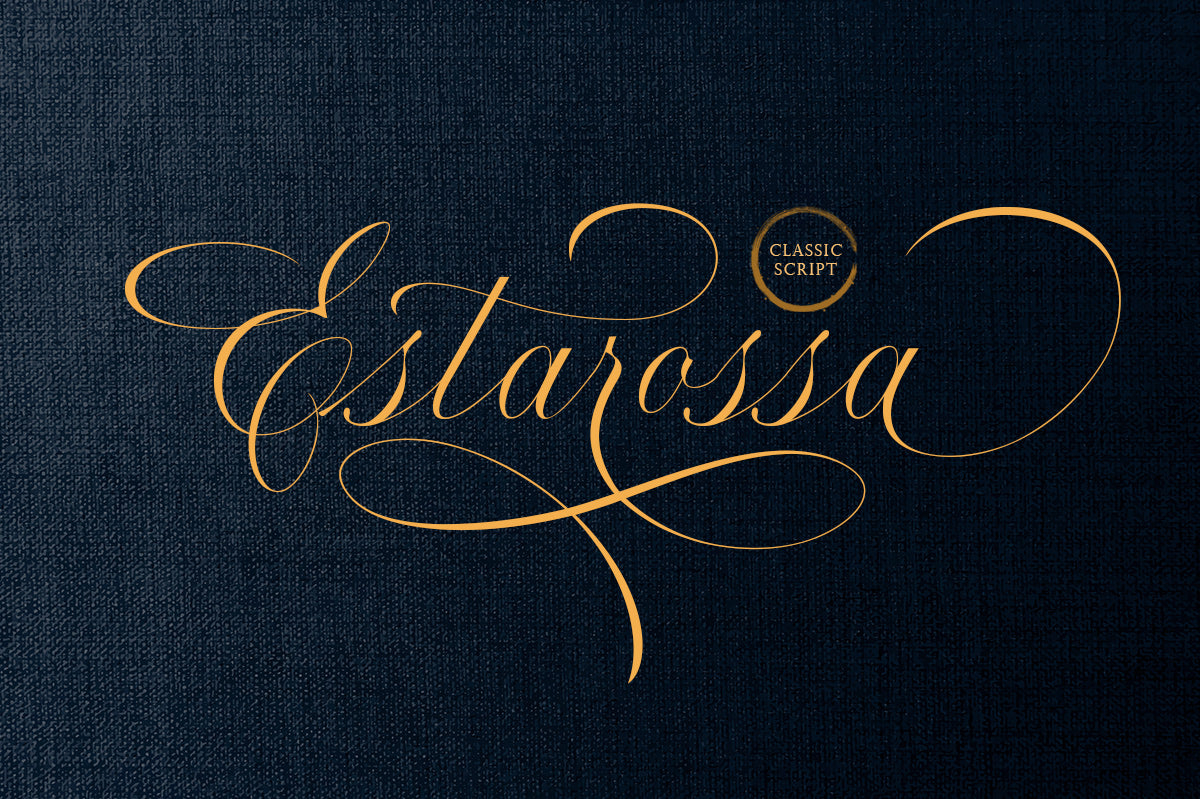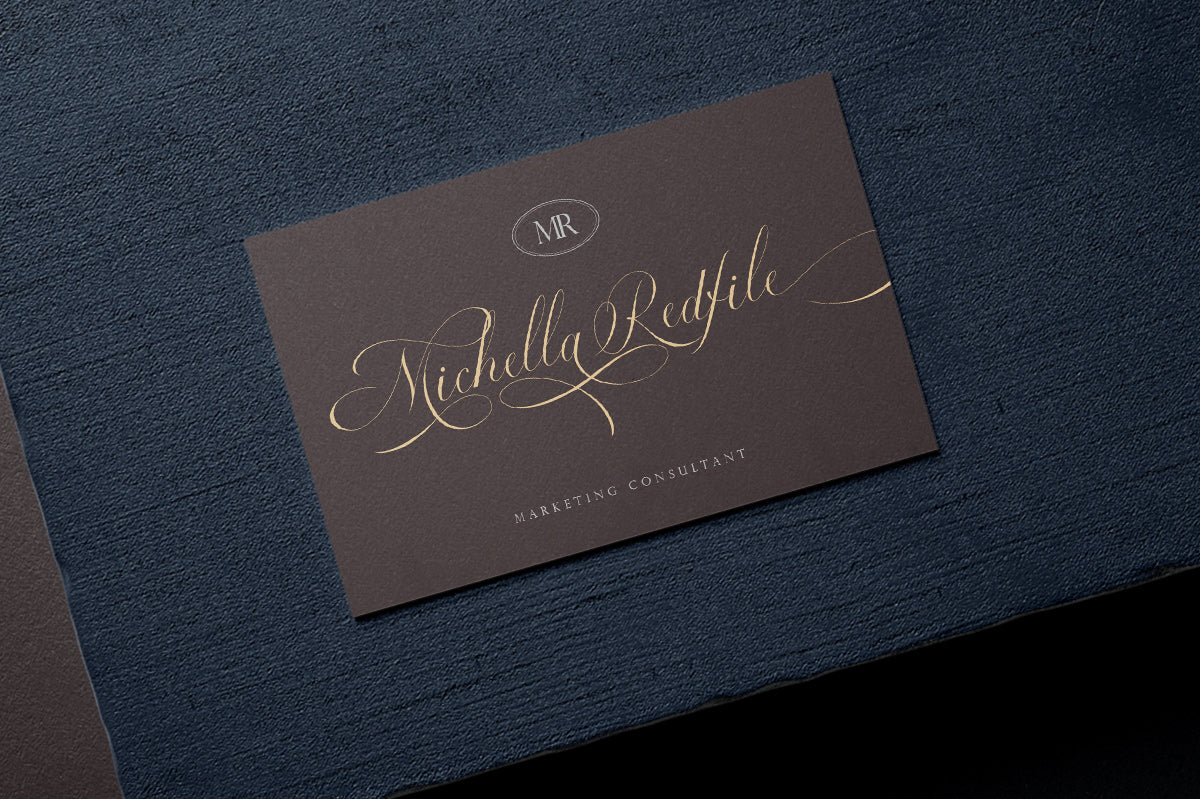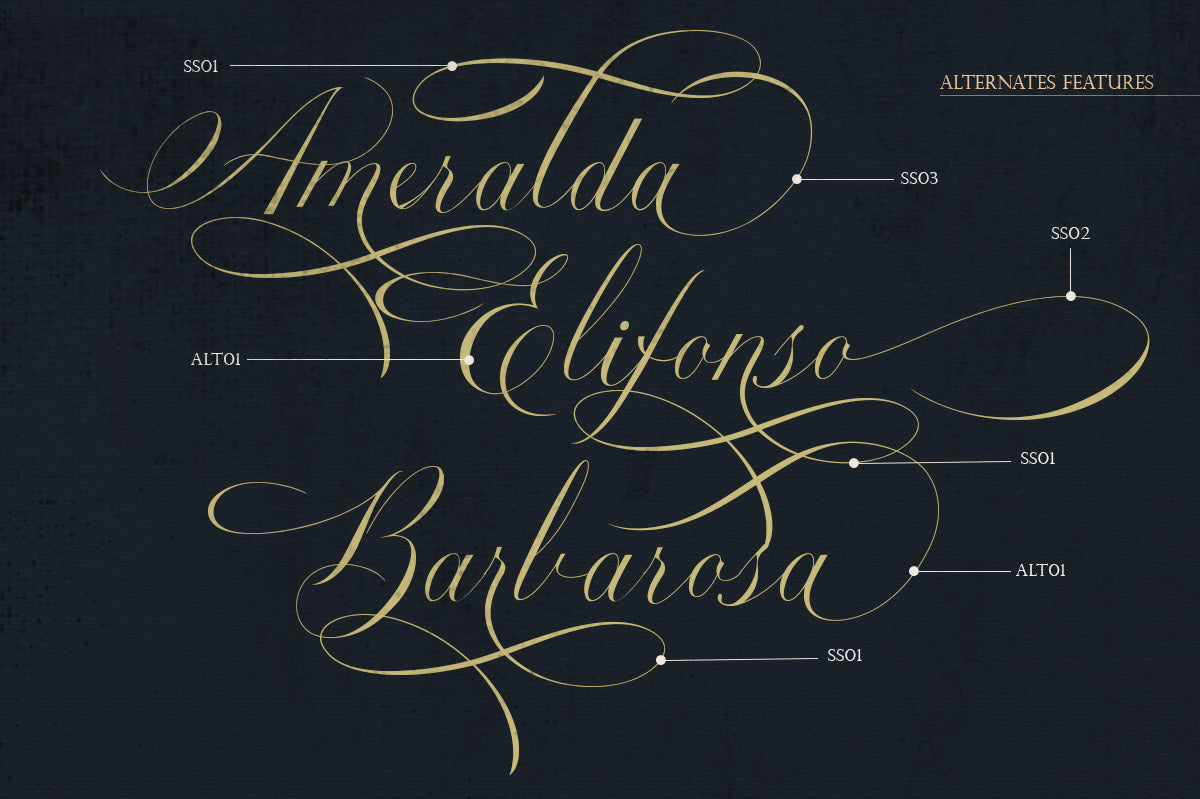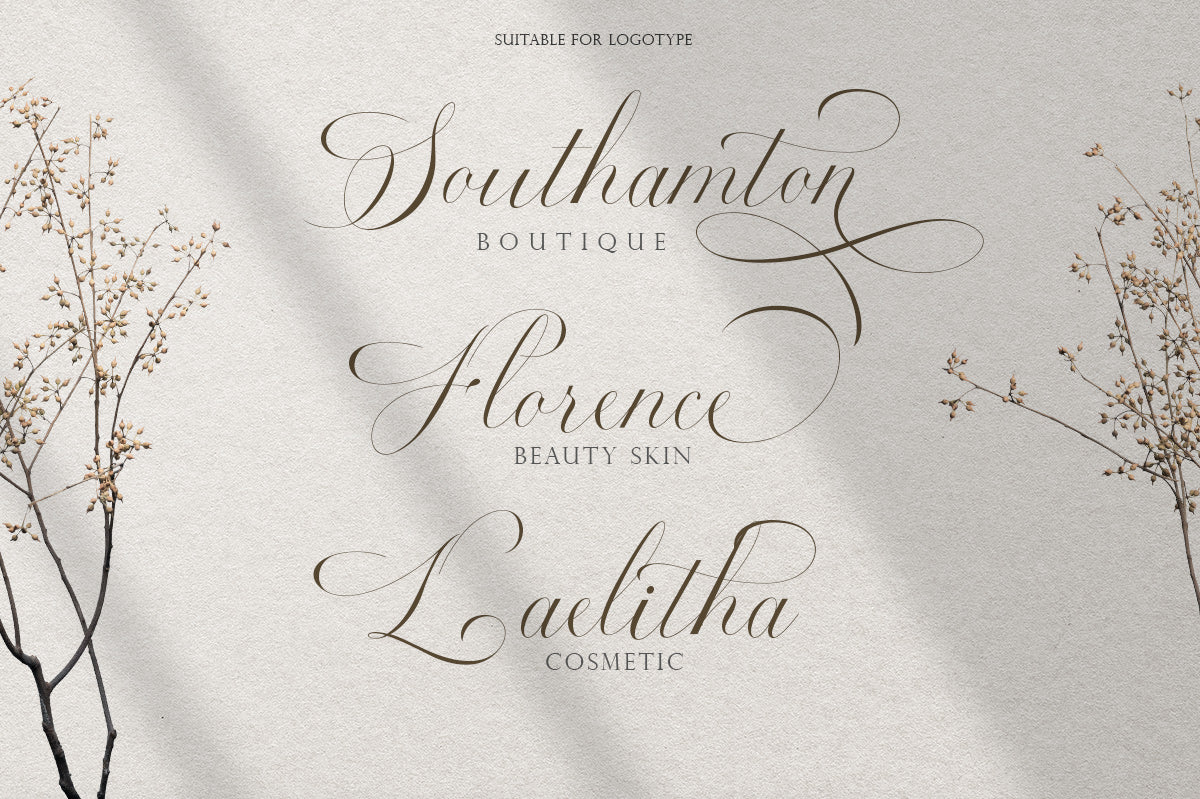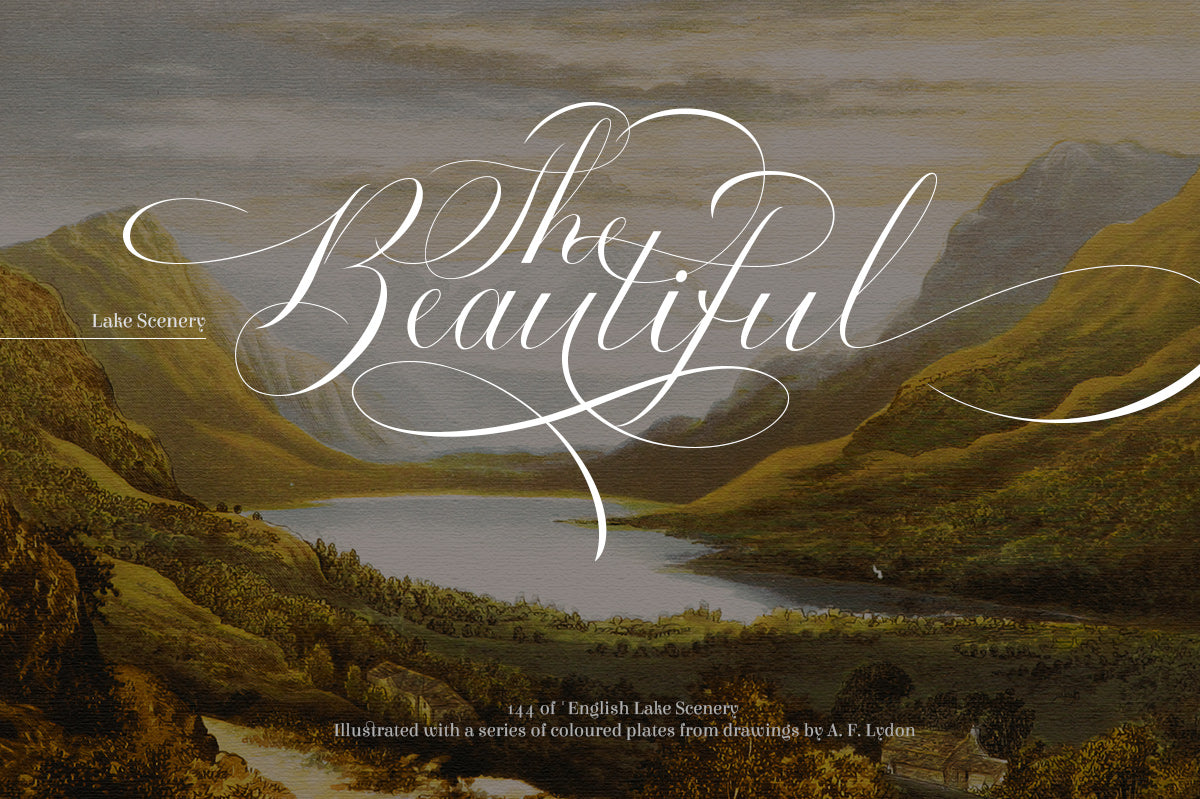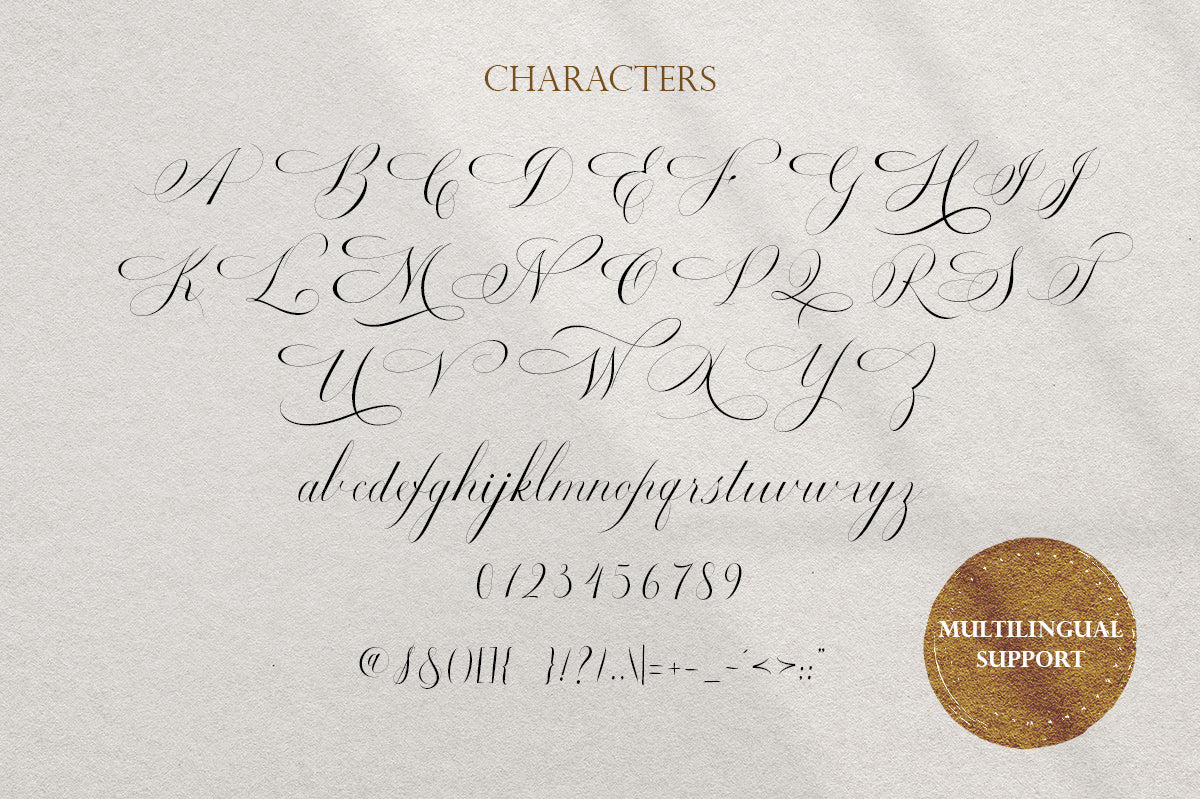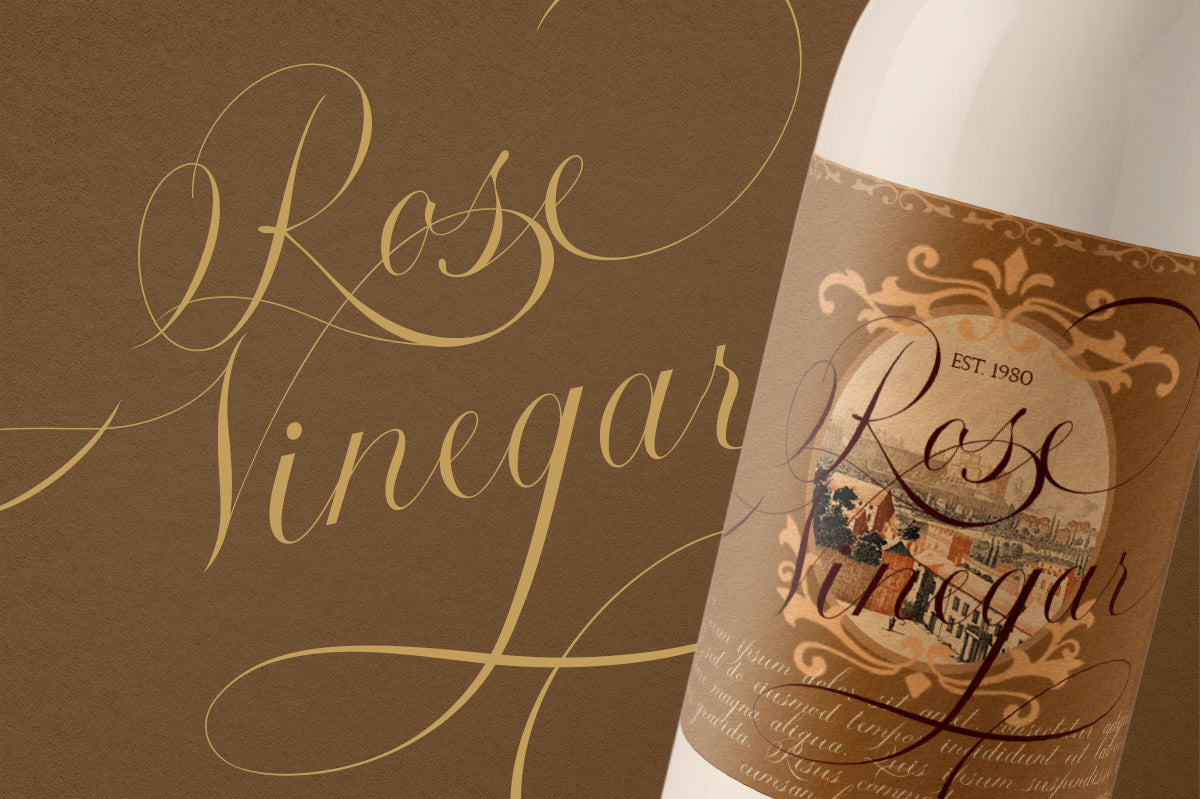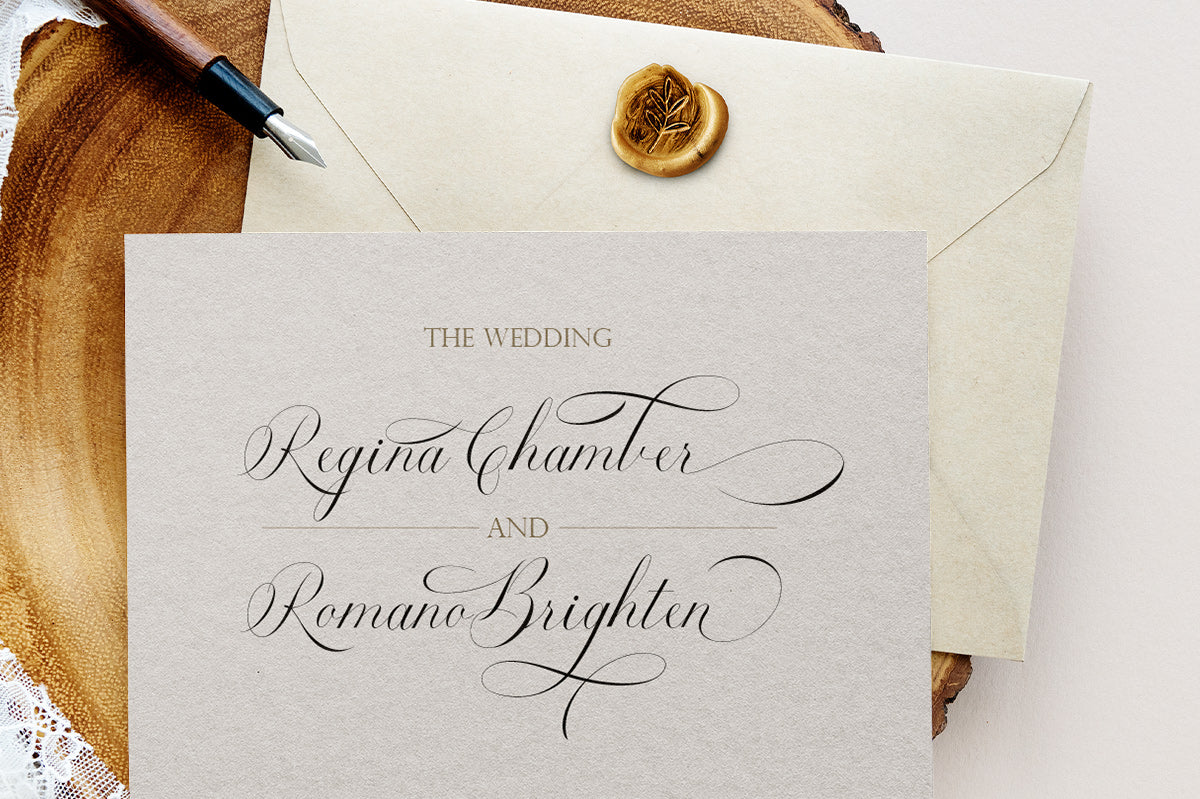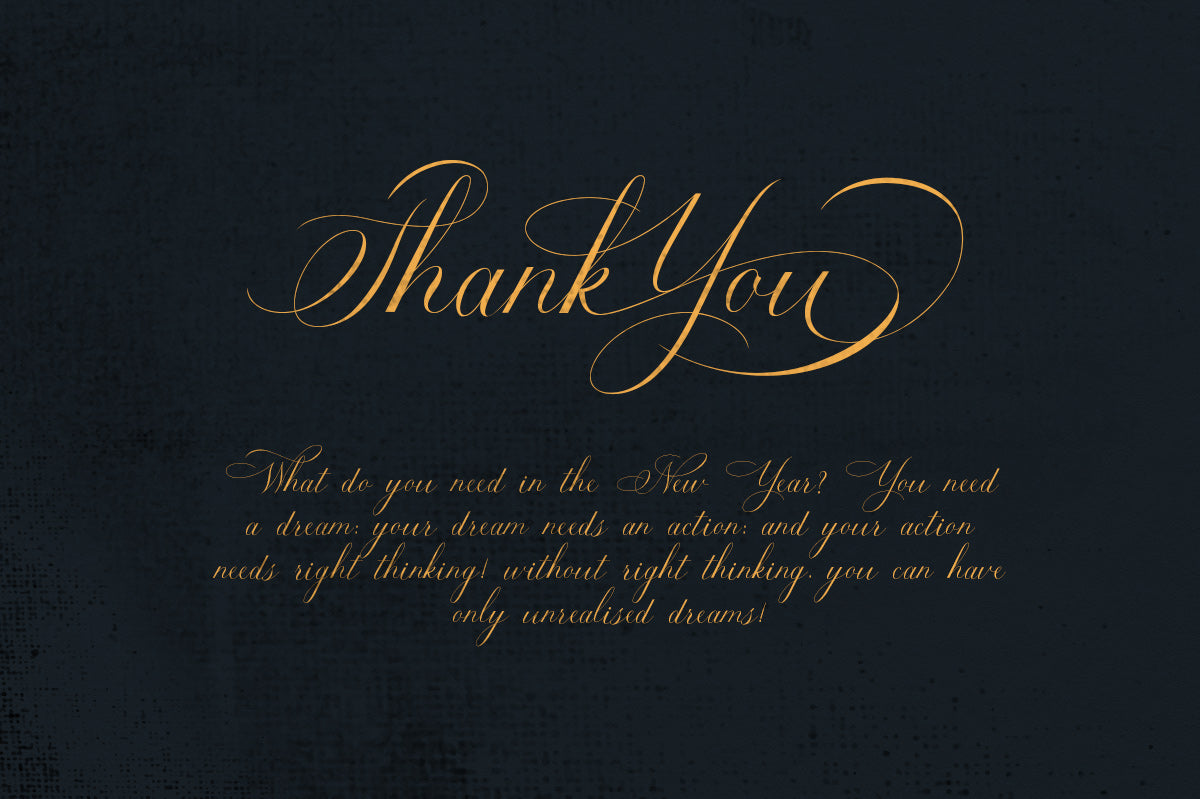
Introducing Estarossa Script, a typeface inspired by classic script styles. This font includes numerous stylistic alternates, ligatures, and swashes, allowing you to experiment with OpenType features to create lettering with a natural touch. It is perfectly suited for use in logos and various formal applications such as invitations, labels, magazines, books, greeting or wedding cards, packaging, fashion, makeup, stationery, novels, and any advertising purpose.
Features:
uppercase & lowercase
numbers and punctuation
multilingual
alternates and ligatures
swashes